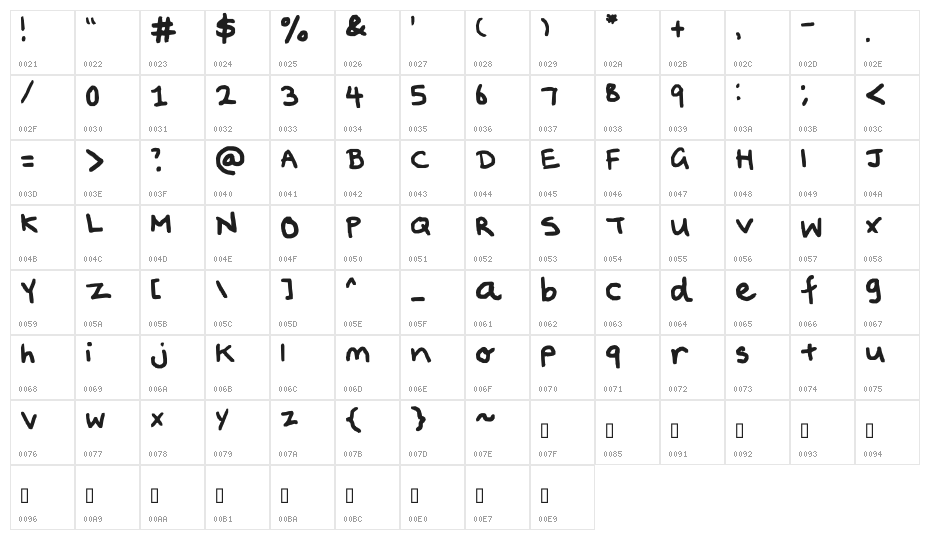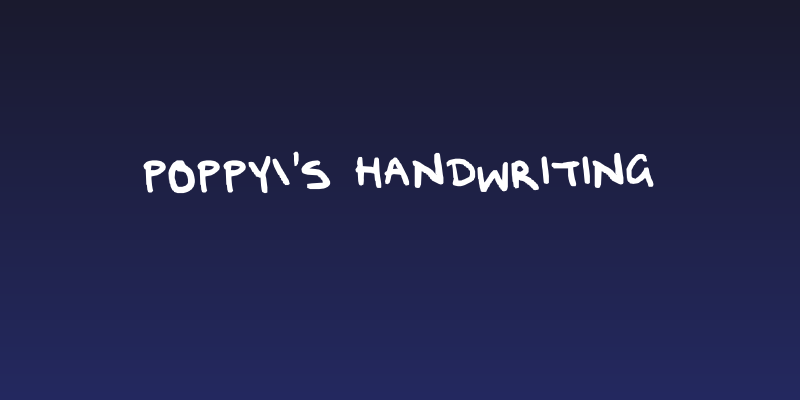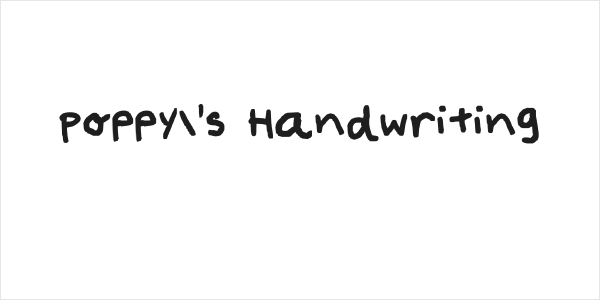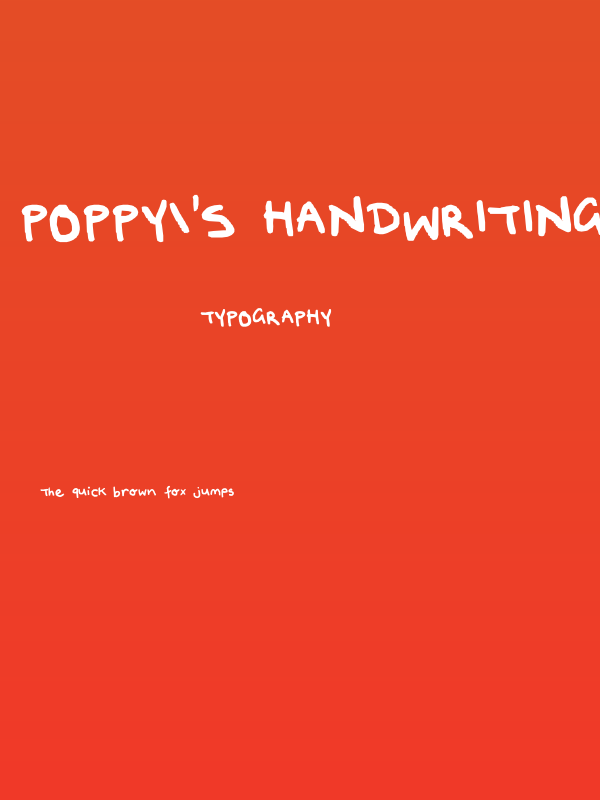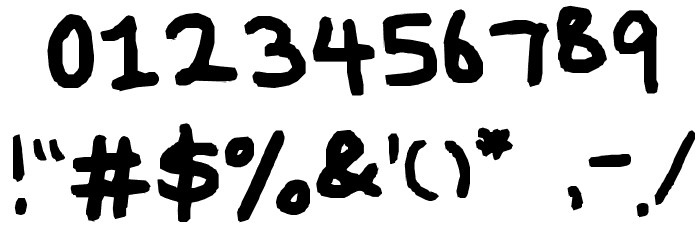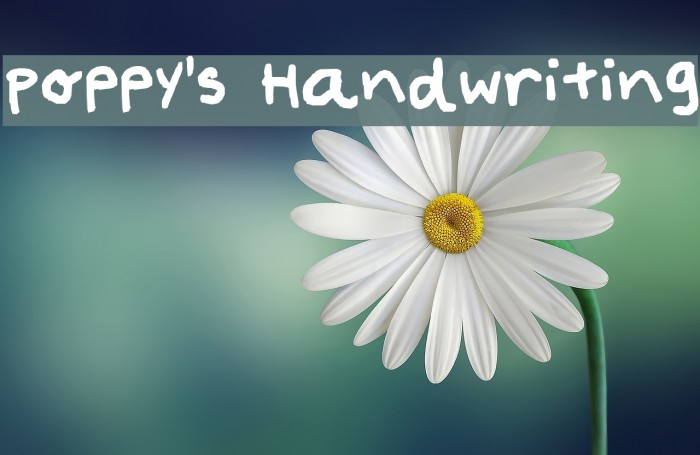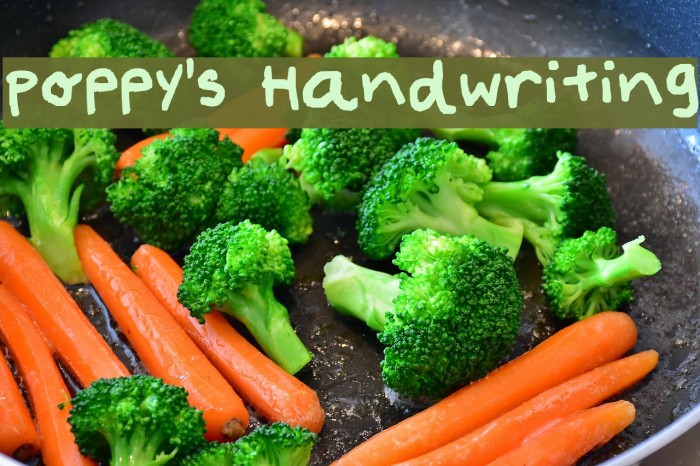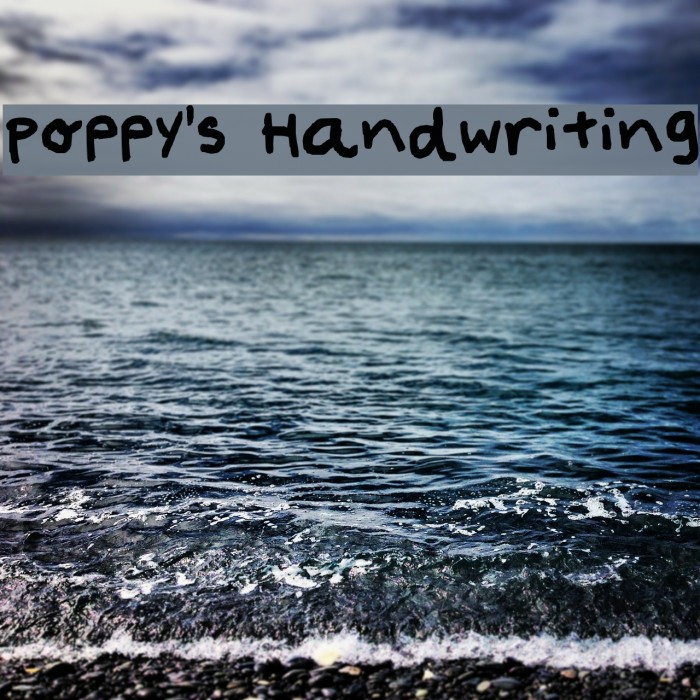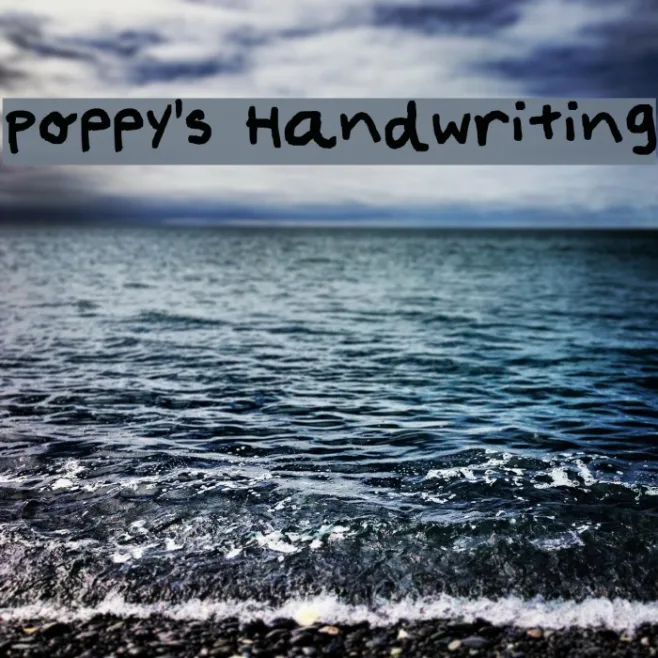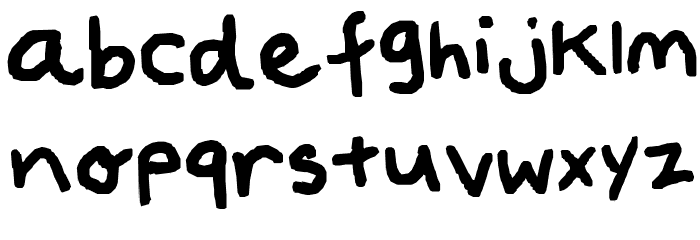
Poppy's Handwriting Font
Poppy's Handwriting Description
This font exudes a playful and casual handwritten style, characterized by its irregular strokes and organic flow. The letters are bold and slightly uneven, mimicking the natural imperfections of handwriting. The uppercase and lowercase letters maintain a consistent style, with rounded edges and a friendly appearance. The numbers and special characters follow the same informal aesthetic, making the font suitable for projects that require a personal touch. Its overall appearance is approachable and warm, ideal for conveying a sense of authenticity and creativity.
| Proposed Projects | Ideal for greeting cards, personal blogs, children's books, and creative branding. |